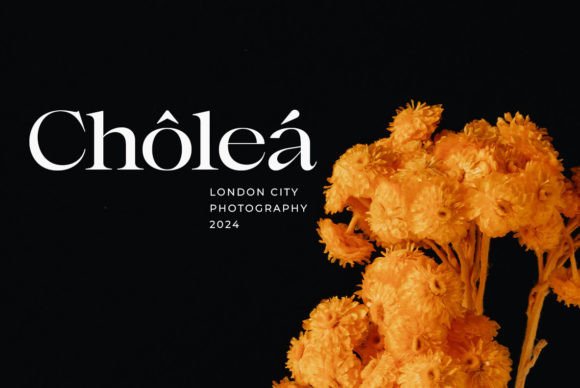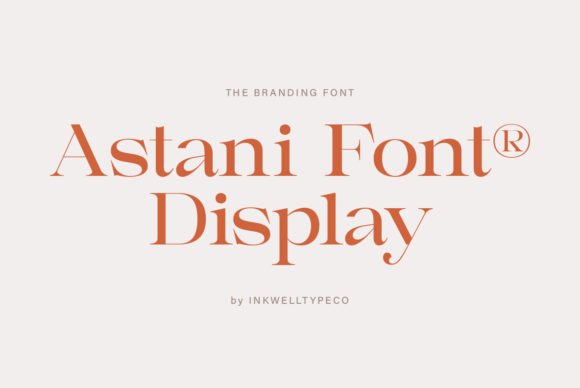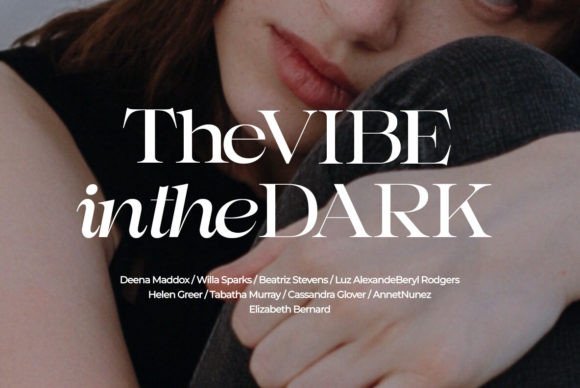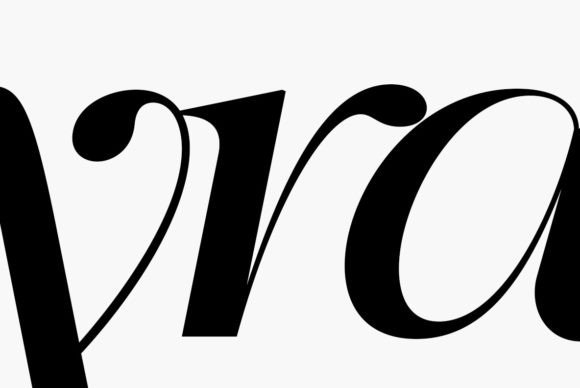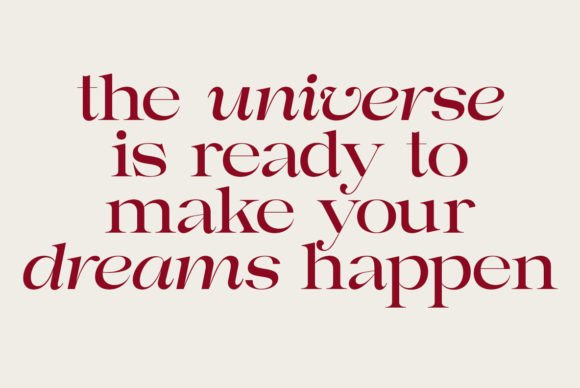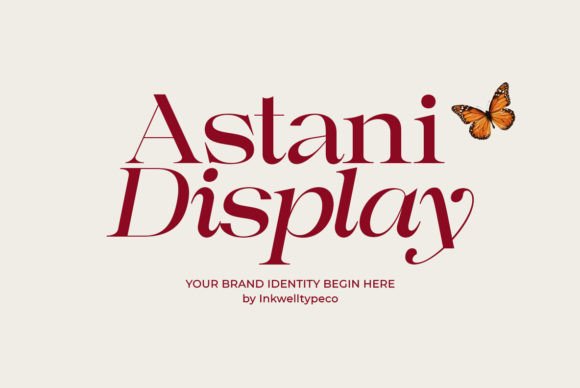
Astani Display Font: The Perfect Blend of Classic Elegance and Modern Freshness
In the world of typography, few fonts manage to strike a balance between classic elegance and modern freshness. However, Astani Display Font is an exception. This stunning font is the embodiment of harmony between traditional elements and a contemporary touch, making it a versatile choice for designers and crafters.
The Characteristics of Astani Display Font
Astani Display Font boasts smooth yet bold lines, which combine traditional elements with a fresh, modern twist. The regular styles feature strong, stable characters that are suitable for use in long texts, paragraphs, or headings. Each letter is carefully shaped, creating a clean, easy-to-read appearance that is both visually appealing and highly legible.
One of the standout features of Astani Display Font is its italic style, which adds a dimension of elegance and dynamism to any design. The gentle slant of the italic style gives the text a touch of boldness and elegant continuity, making it perfect for emphasizing key words, emphasis, or design elements that require visual prominence.
Versatility and Applications
Astani Display Font is an incredibly versatile font that can be used in a wide range of applications. Its classic elegance makes it suitable for traditional designs, such as wedding invitations, luxury branding, and high-end advertising. On the other hand, its modern freshness makes it perfect for contemporary designs, such as fashion magazines, blog headers, and social media graphics.
Designers and crafters can use Astani Display Font for a variety of projects, including:
- Logos and branding: The font’s elegant and modern design makes it perfect for creating stunning logos and branding materials.
- Headings and titles: The font’s bold lines and clean appearance make it ideal for headings and titles in books, magazines, and online publications.
- Invitations and announcements: The font’s classic elegance makes it suitable for formal invitations and announcements.
- Packaging and advertising: The font’s modern freshness makes it perfect for packaging and advertising designs that require a bold and eye-catching look.
The Benefits of Using Astani Display Font
There are several benefits to using Astani Display Font in your designs. Some of the most significant advantages include:
- Improved readability: The font’s clean and easy-to-read appearance makes it perfect for long texts and paragraphs.
- Elegant and modern design: The font’s classic elegance and modern freshness make it suitable for a wide range of designs and applications.
- Versatility: The font’s versatility makes it perfect for use in various projects, from traditional designs to contemporary designs.
- High-quality design: The font’s carefully shaped letters and smooth lines ensure a high-quality design that is both visually appealing and professional.
In conclusion, Astani Display Font is a stunning font that embodies the perfect balance between classic elegance and modern freshness. Its smooth yet bold lines, combined with its traditional elements and contemporary touch, make it a versatile choice for designers and crafters. With its regular styles featuring strong, stable characters and its italic style adding a dimension of elegance and dynamism, Astani Display Font is perfect for a wide range of applications and projects.
Whether you’re a designer or crafter looking for a font that can add a touch of elegance and modernity to your designs, Astani Display Font is an excellent choice. Its high-quality design, versatility, and improved readability make it a valuable addition to any design project.